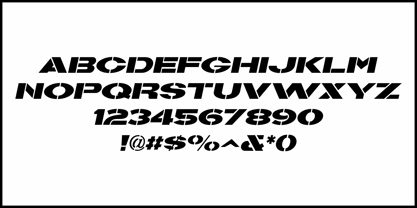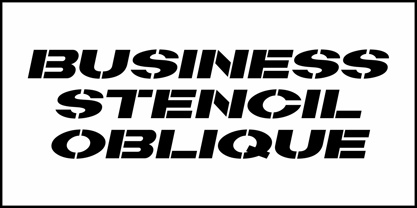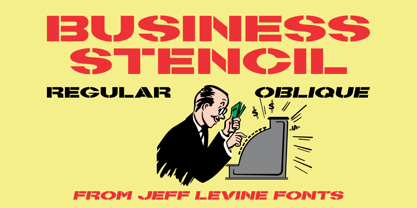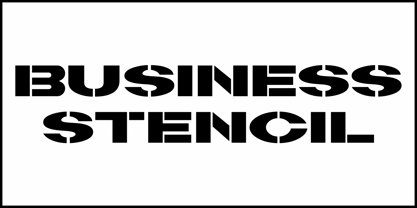
Business Stencil JNL
von Jeff Levine
Die Schriftfamilie Business Stencil JNL wurde von Jeff Levine entworfen und von Jeff Levine veröffentlicht. Business Stencil JNL enthält 2 Stile und Familienpaketoptionen.
The wide stencil sans lettering used for the title of an article called "Choose Your Stars" in the October, 1954 issue of Photoplay magazine inspired Business Stencil JNL.
This extra bold type design is available in both regular and oblique versions.